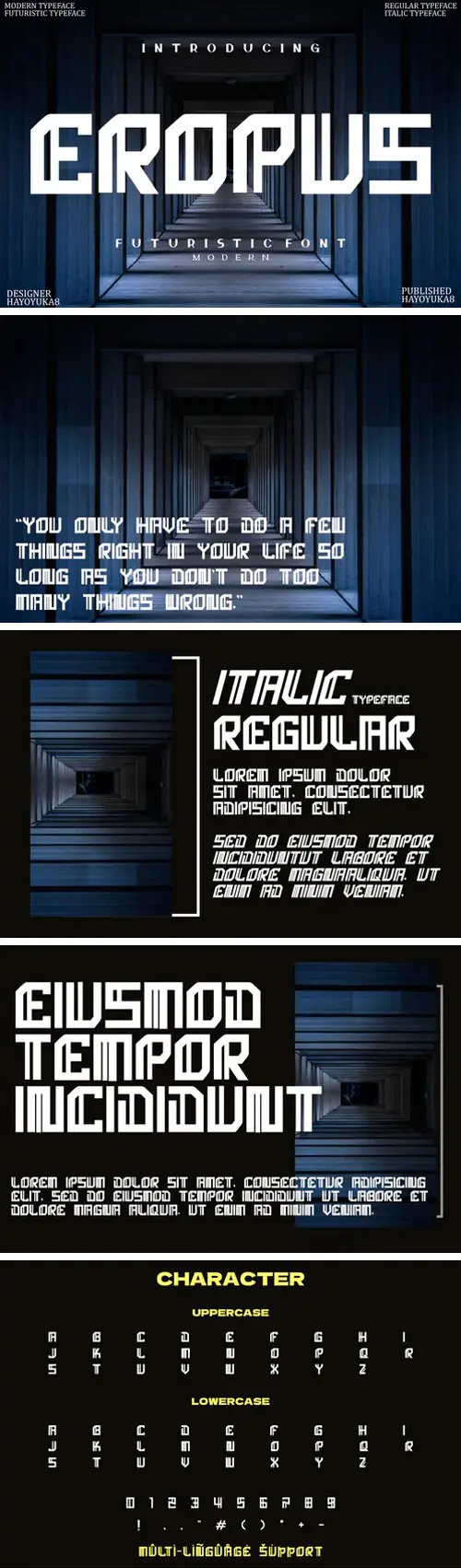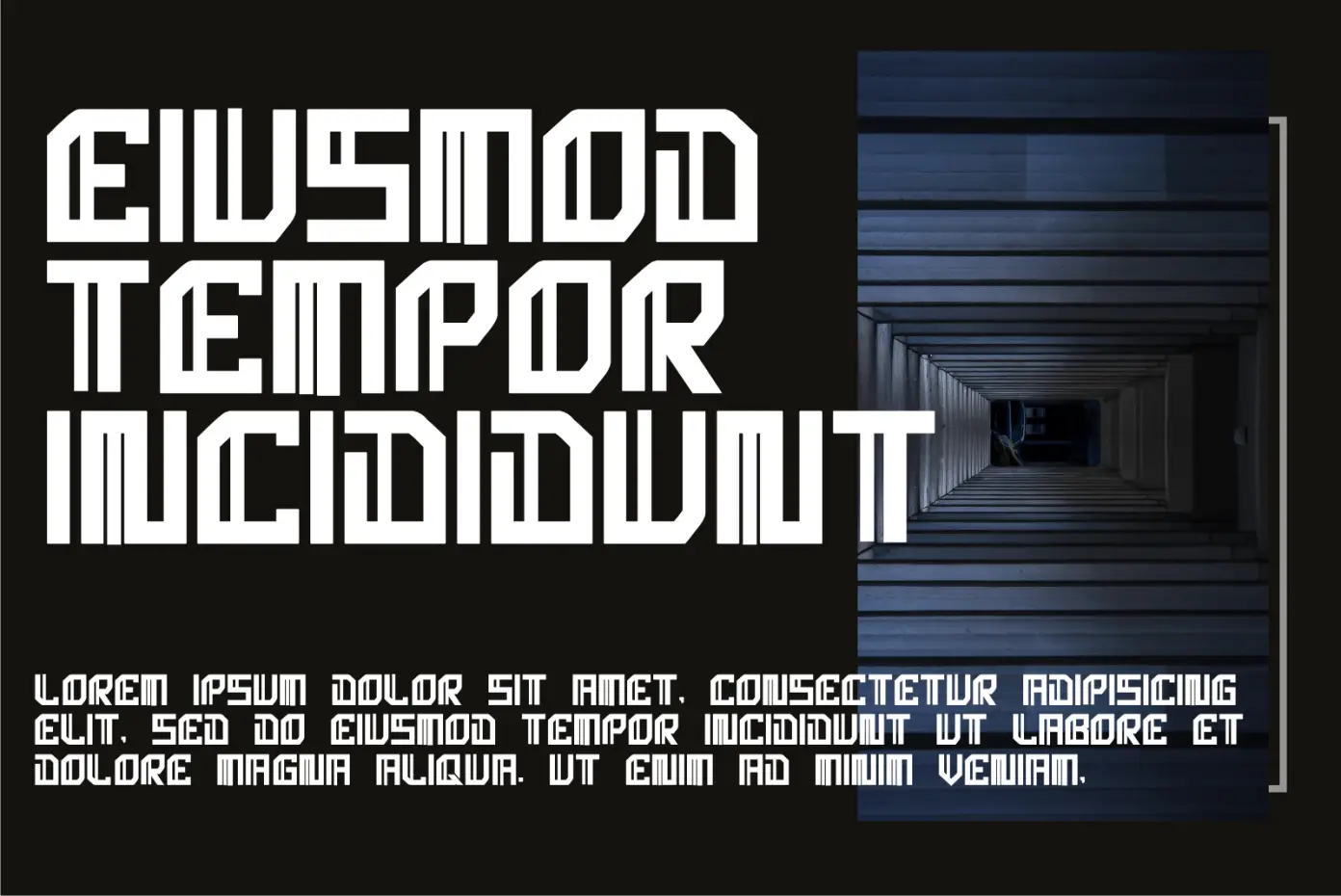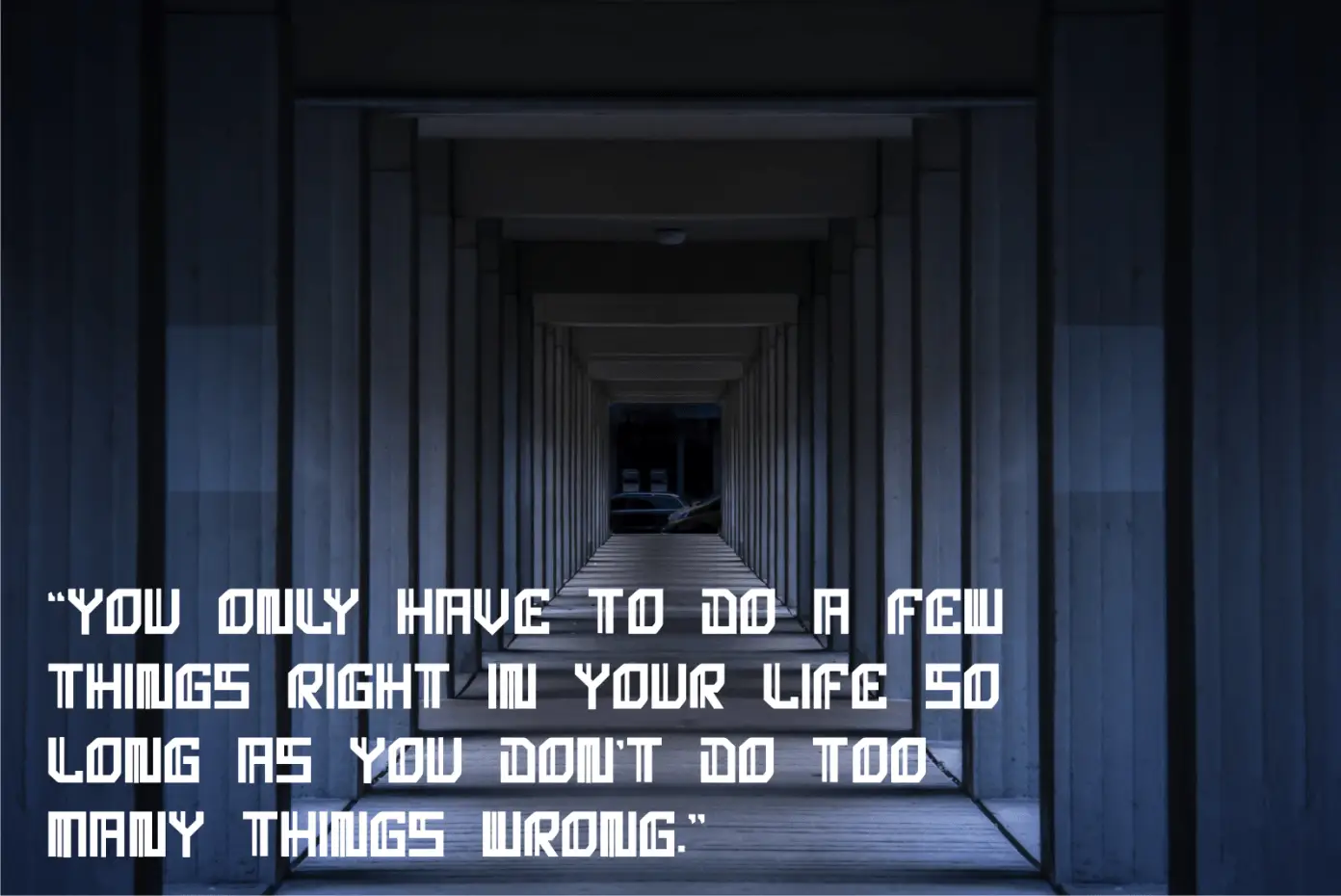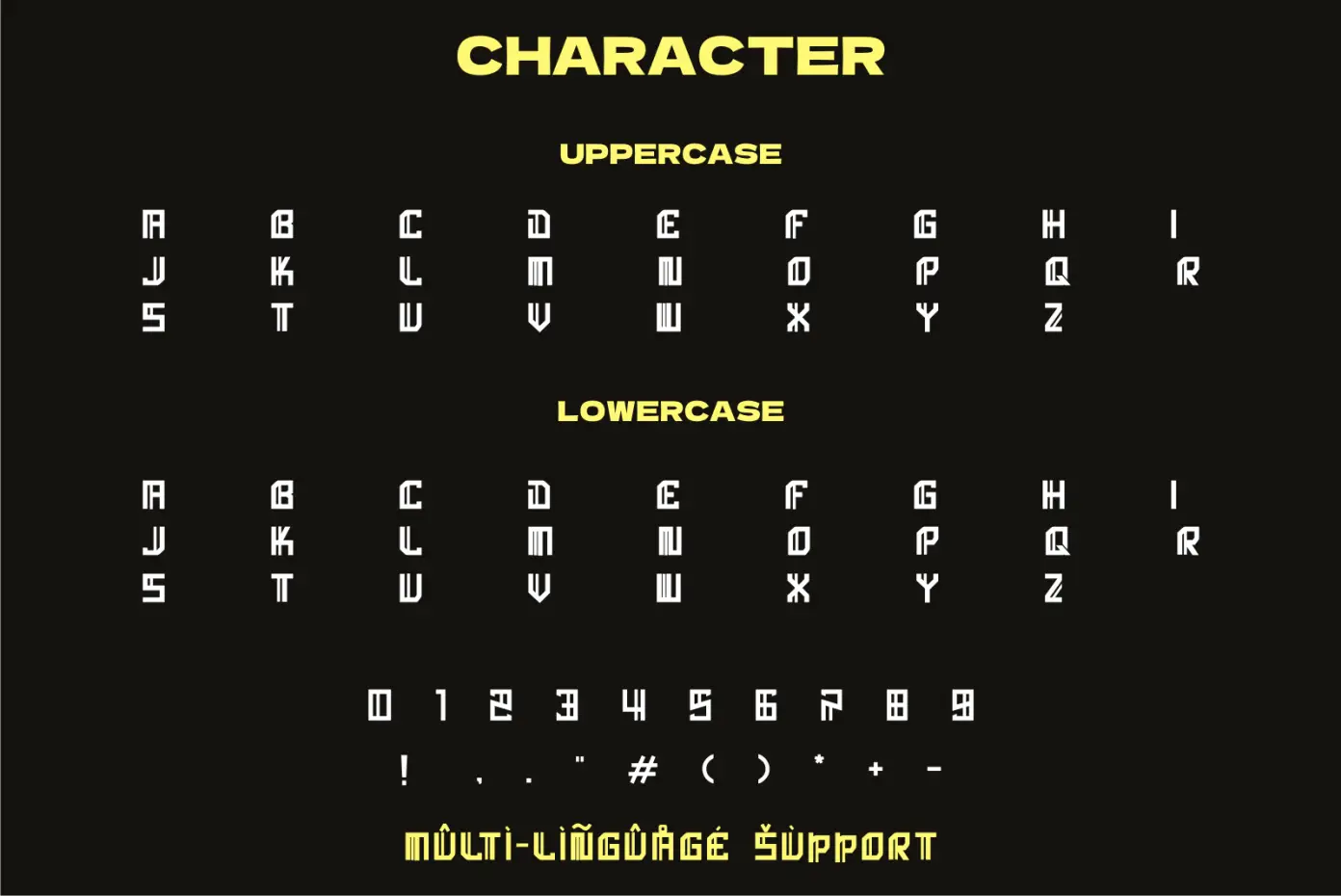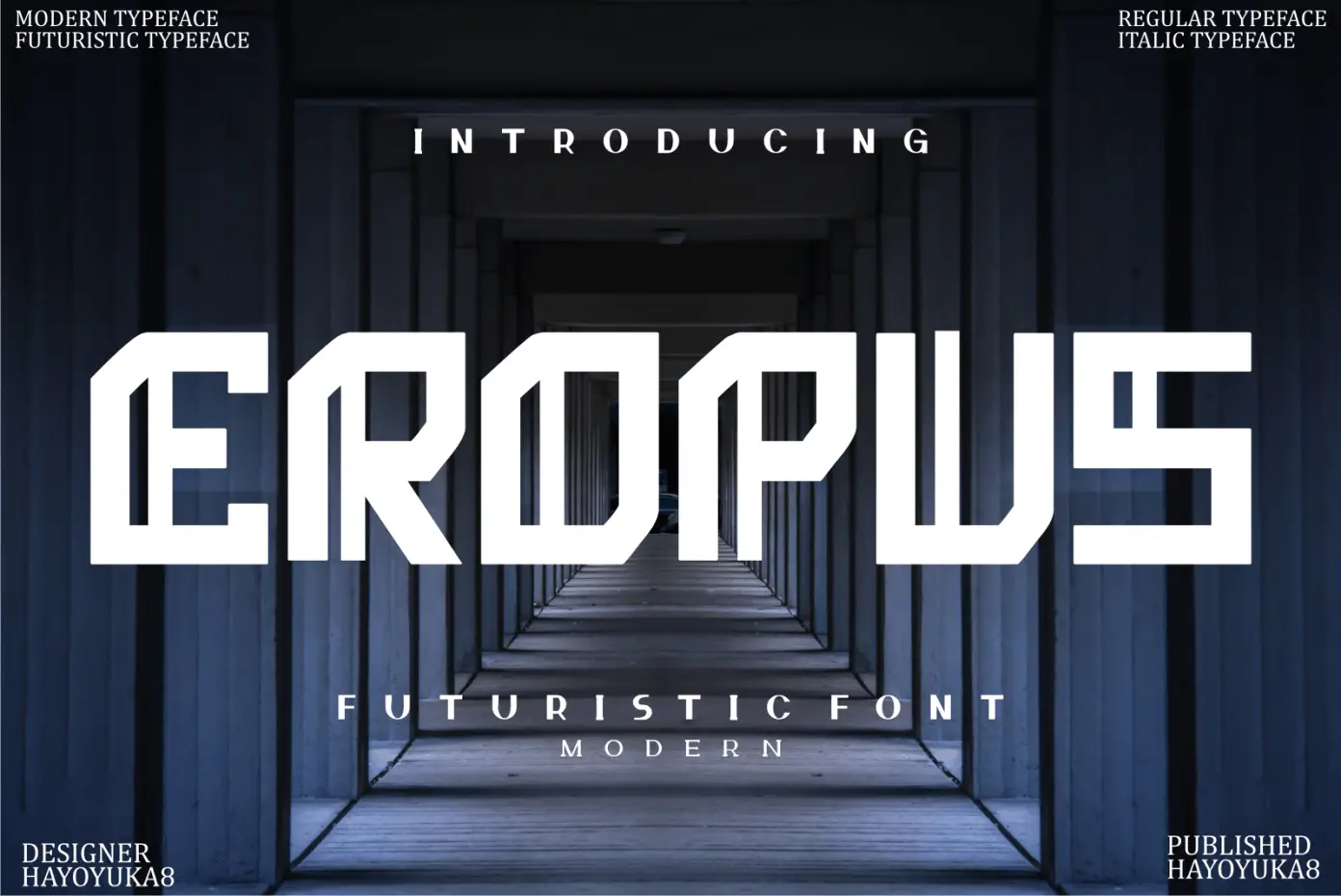
Eropus Display Font
The Eropus Display Font is a striking typeface designed for impactful visual communication. With its unique character shapes and bold presence, this font is perfect for a variety of design projects.
This font is ideal for branding, logos, web design, and print materials. Its bold design makes it suitable for headlines, posters, and promotional graphics.